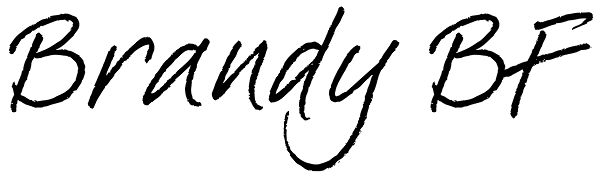
Brandy BF
Felt tip-written and full of expressive lines, Brandy BF exudes much verve and energy; and unlike many scripts, sets rather well in all caps situations. Use Brandy BF as a superb choice for everything from upscale restaurant menus to projects...